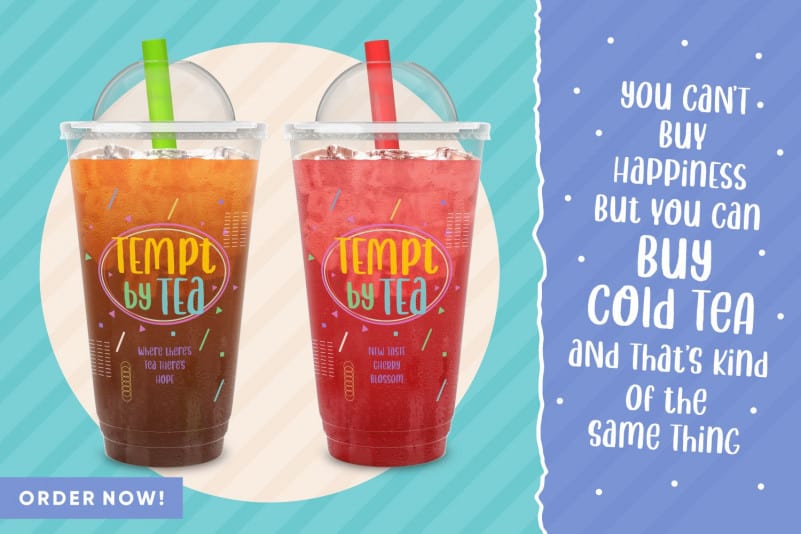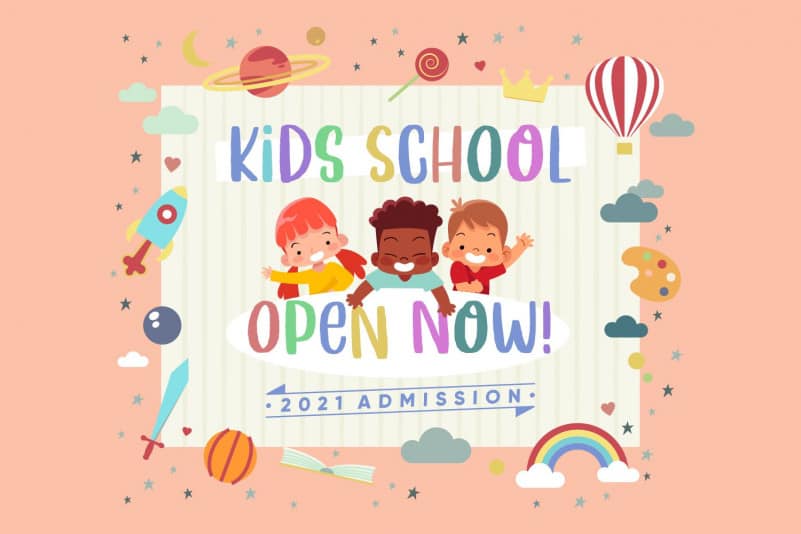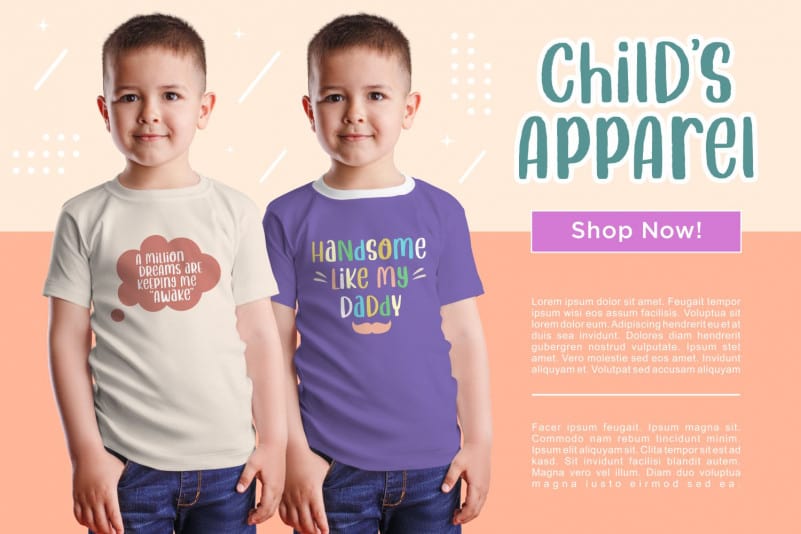
Antiokhia Display Font
Antiokhia Display Font is a fun and quirky display font. Whether you are using it for cartoon-related designs, children’s games, quotes, titles, brand names, book covers, posters, or just any creation that requires a touch of beauty, this font is a great choice.